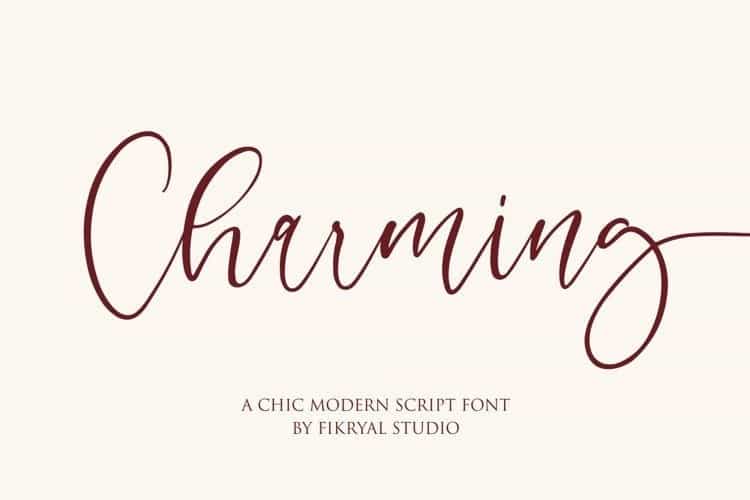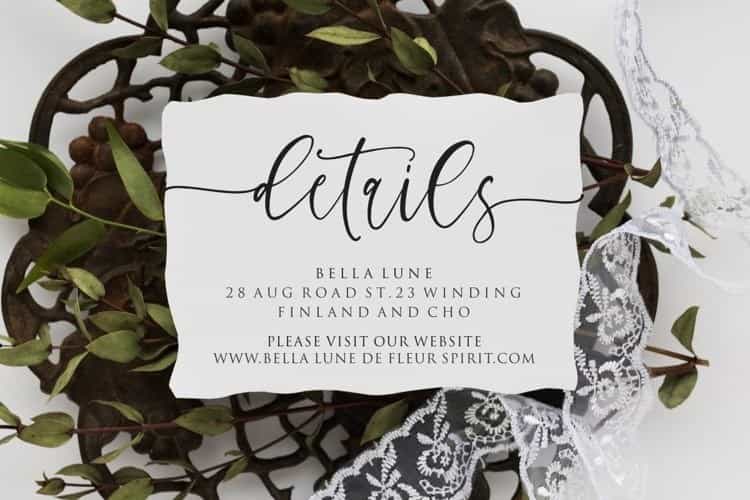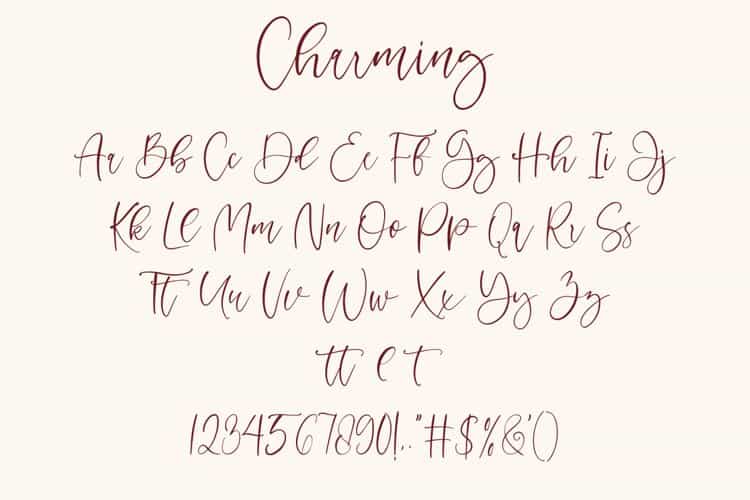
Charming Font is a modern calligraphy font. Charming…for logotype, website header and fashion design as well as wedding card design seems particularly special; Charming comes with elegant style and Signature also. It contains a full set of lower & uppercase letters, a large range of punctuation, numerals, and language support for most Latin alphabets.